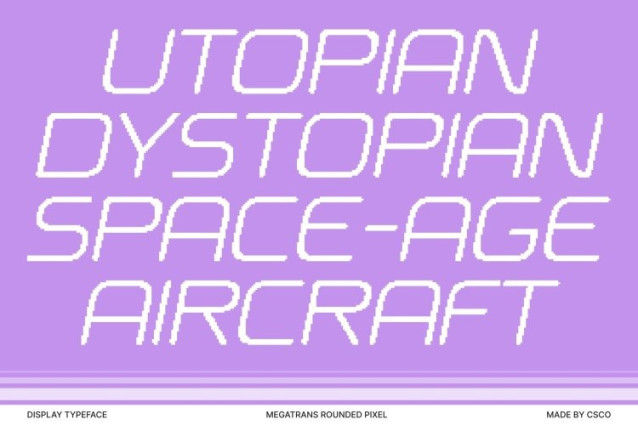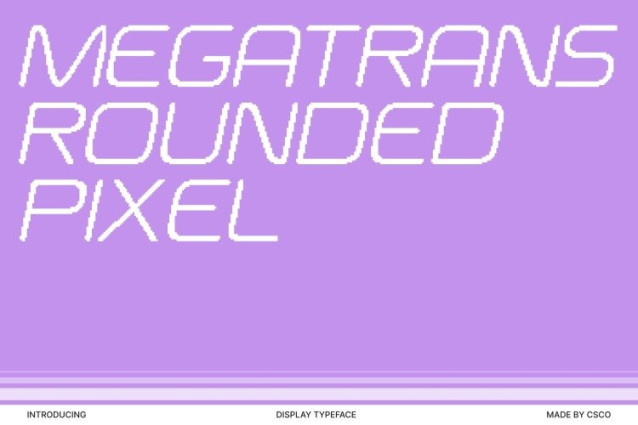
Megatrans Rounded Pixel Font
Megatrans Rounded Pixel Font This is a sleek and contemporary sans serif font designed to capture the essence of the digital age. With its techno-inspired structure and rounded edges, the font delivers a smooth yet electrifying presence. Each character embodies modernity, precision, and motion—making it a standout choice for designers seeking a clean but futuristic aesthetic that instantly energizes any layout.
Rounded Geometry for a Soft, Futuristic Appeal
At the core of this font is its refined rounded form, which balances sharp techno influence with a softer, more approachable shape. This combination creates a forward-thinking appearance without sacrificing readability or visual comfort.
Pixel Effect That Enhances Its High-Tech Character
The pixel effect further elevates the futuristic vibe, infusing each letter with a subtle digital texture reminiscent of 8-bit graphics and modern pixel aesthetics. This blend of smooth geometry and pixelated detail creates an eye-catching contrast, making the font feel dynamic, innovative, and full of digital personality. It’s a perfect fusion of retro digital culture and modern design trends.
Perfect for Branding, Logos, Posters, and Digital Design
This font thrives in bold visual environments where modern style and digital expression matter most. Its clean yet high-tech appearance makes it ideal for branding, logo design, tech posters, app interfaces, gaming titles, and creative digital promotions.